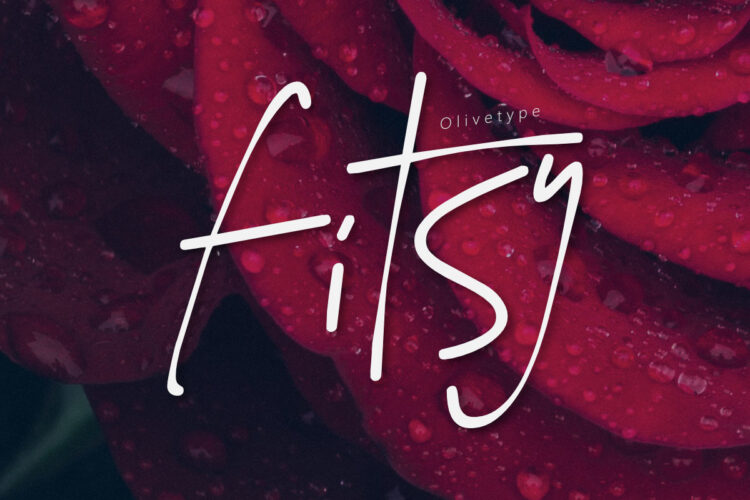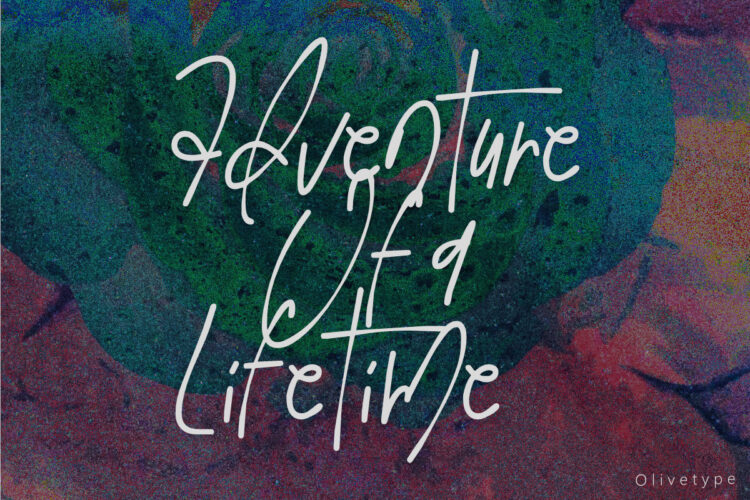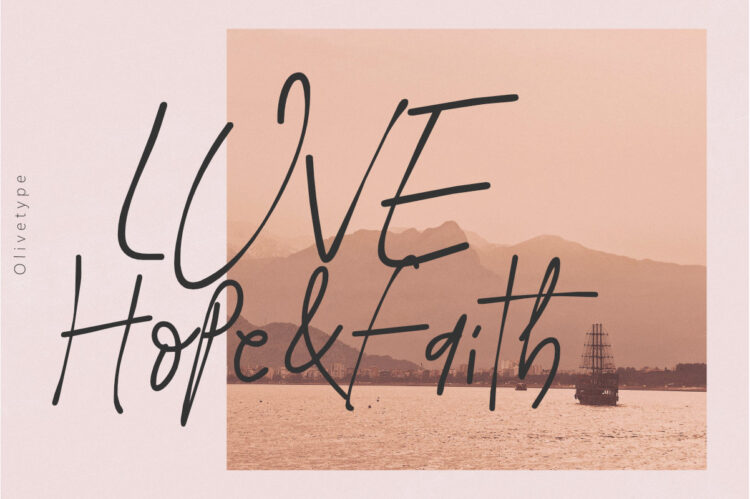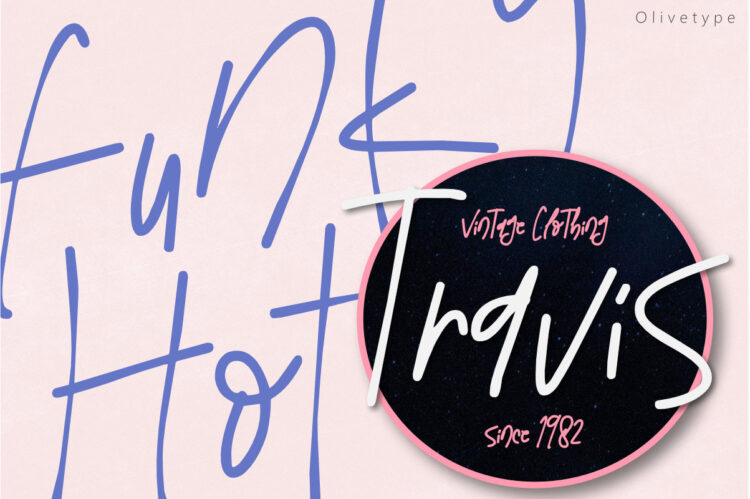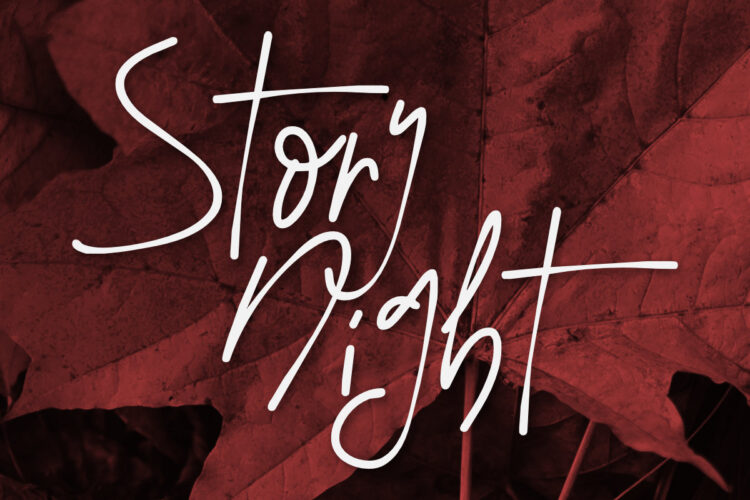
Introducing Fitsy, our new handwritten font suitable for adding personality and flair to your design. Our original, creative font lets you capture the viewer’s attention and bring your vision alive. Add a perfect splash of personality with Fitsy’s fun characters and whimsical curves and make the story come alive!
- Basic Latin Uppercase and Lowercase